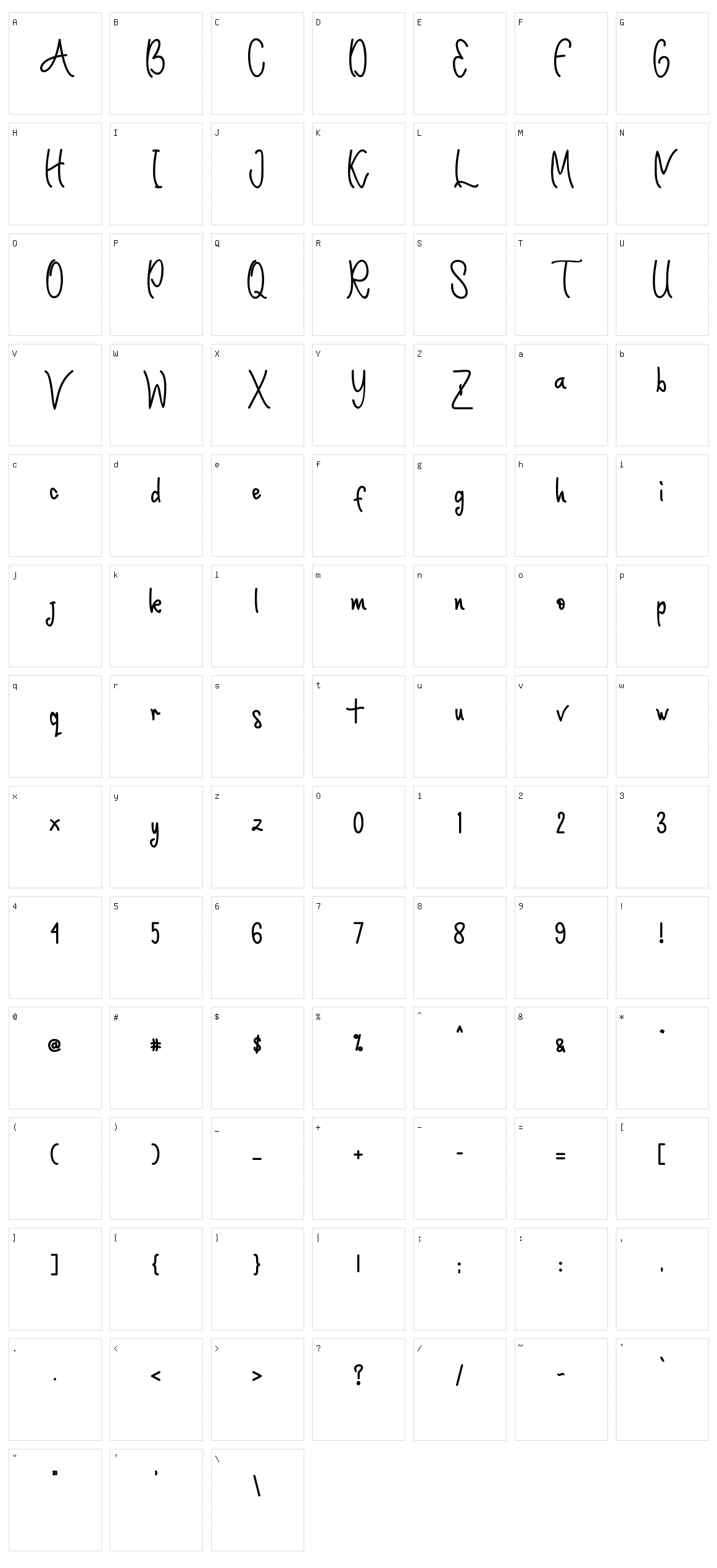
The free font Santa Reindeer is carefully designed by Harjuno Kristanto, showcasing a thoughtful balance of creativity and usability and falls under the Script font style. When you download the ZIP file, it contains only 24.45 KB of font files, making it lightweight and quick to download. Please review the license details below to understand permitted usage and distribution rights. If license information is not available, we recommend using this font for personal projects only or contacting the author directly for commercial usage permissions.